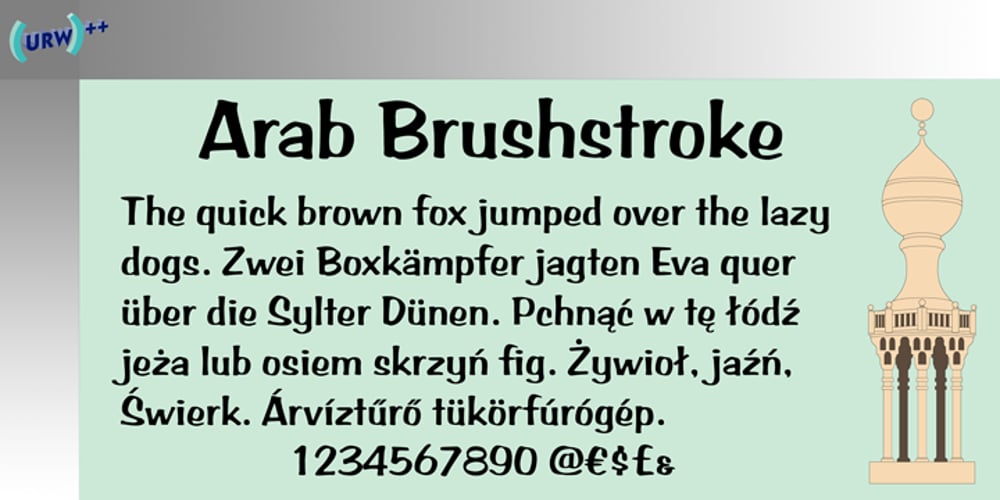
Arab Brushstroke Font Family was designed by URW++ and published by URW Type Foundry. Arab Brushstroke contains 1 styles and family package options. Arab Brushstroke is a graceful, upright German calligraphic script. At first glance, Arab Brushstroke does not seem to have much in common with Arabic calligraphy. Yet the gracefulness of its letterforms remind the viewer that calligraphy is a global passion, one that can be seen in the Arab world as well. Perhaps that feeling was the inspiration behind this typeface’s name? In any case, Arab Brushstroke is a good choice for use in headlines, as well as other display applications.